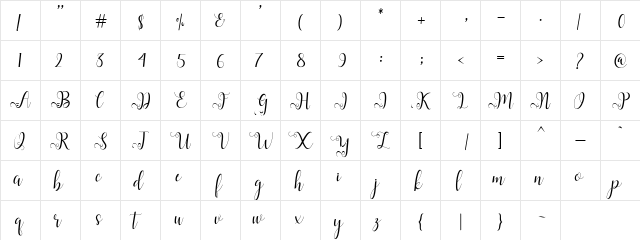
Alliana Script Regular
Design Context for Alliana Script Typeface
Alliana Script flows with the natural rhythm of handwritten lettering, making it ideal for designs that call for warmth and personal expression.
Font Pairing: Combine Alliana Script with a simple geometric sans for maximum contrast — the tension between flowing curves and clean structure is a classic typographic pairing.
Pro Tip: Use Alliana Script for short runs of text — names, titles, or taglines. Extended body copy in script faces tires the eye quickly.